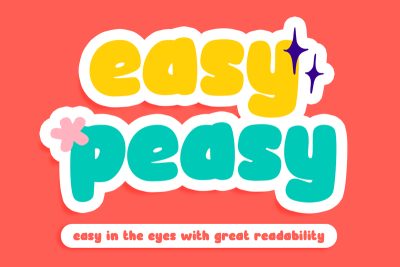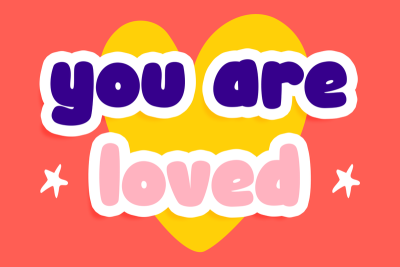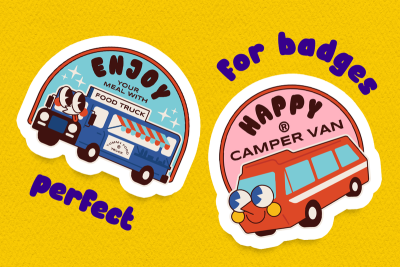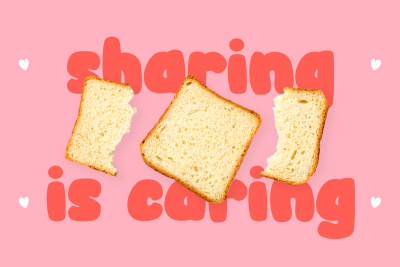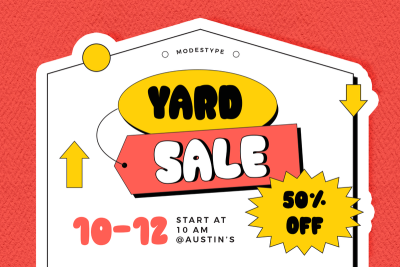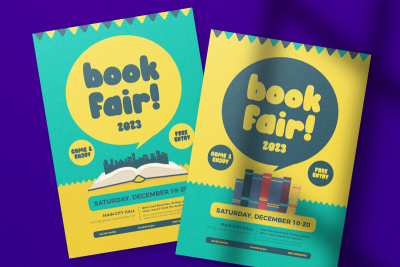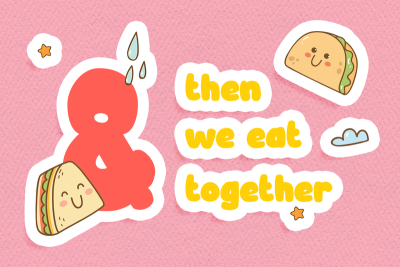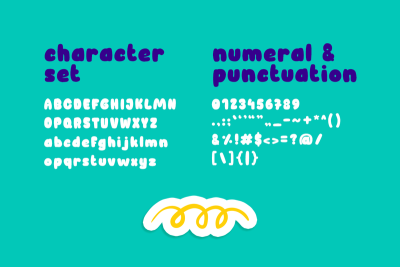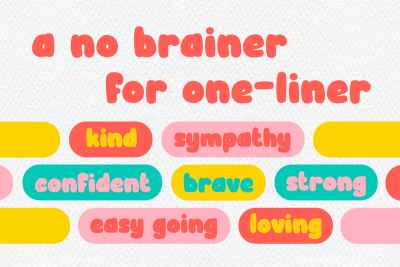
Cute Font Patch Note is a fun, bubbly typeface that adds creativity and joy to any project. With bold, rounded letters, this font feels like it belongs in a scrapbook or sticker collection. Each character has a friendly, playful look that easily draws attention. The thick strokes and soft edges give it warmth and cheer, making it perfect for designs that aim to feel happy and youthful.
Additionally, this font brings a handmade, DIY feel that appeals to audiences who enjoy creative, personal projects. Its rounded shapes and outlined effect add a lighthearted touch. Whether used for titles, headlines, or decorative text, this font captures attention and inspires a sense of playfulness and joy.
Cute Font Patch Note Suitable For
Patch Note is an excellent choice for designers and brands looking for a creative, approachable look. Itโs especially great for projects aimed at younger audiences or those with a playful, informal style. For example, itโs ideal for childrenโs products like toys, games, and educational materials. Its friendly design captures kidsโ attention and makes content feel welcoming. Storybooks, coloring books, and activity sheets also benefit from its engaging style.
Social media creators and bloggers can use Cute Font Patch Note to make their content more visually appealing. This font works well for lifestyle, DIY, or crafting content. Its bold style stands out in social media feeds, making it perfect for Instagram graphics, Pinterest pins, and YouTube thumbnails. Posts related to crafts, hobbies, or family-friendly topics will feel more inviting with this fontโs cheerful style.
This font is also a great option for branding aimed at younger or creative markets. Stores that sell stationery, stickers, or craft supplies can use it to create a friendly, appealing brand image. This font resonates with kids, teens, and young adults. Brands focused on handmade or DIY products can use it to add a personal, artistic flair, giving materials a warm and crafted feel.
In summary, Cute Font Patch Note is a versatile, friendly typeface that works in many creative applications. Its balance of readability and playful style makes it ideal for projects targeting young audiences, creative communities, and anyone looking for a cheerful, DIY feel. Whether used for social media, branding, educational materials, or event decor, this font brings joy and personality to every design, making it perfect for adding fun and creativity.